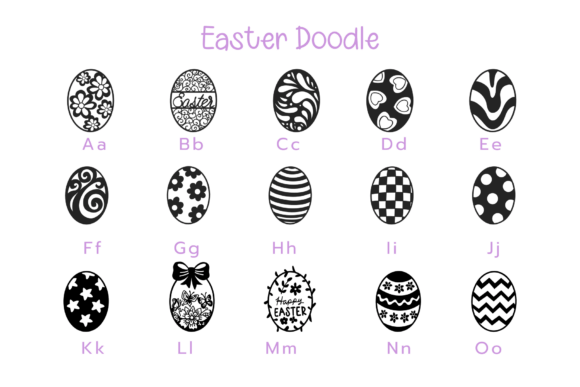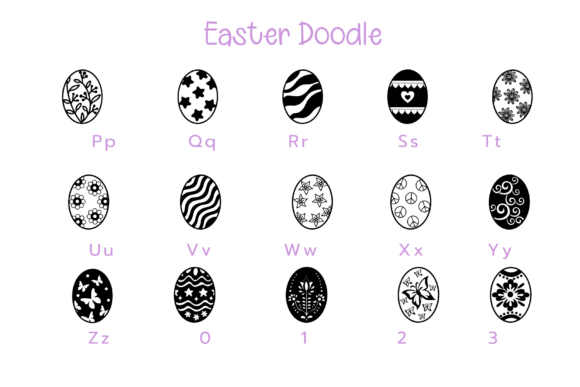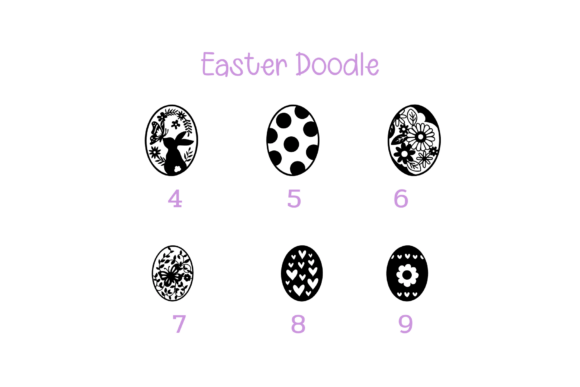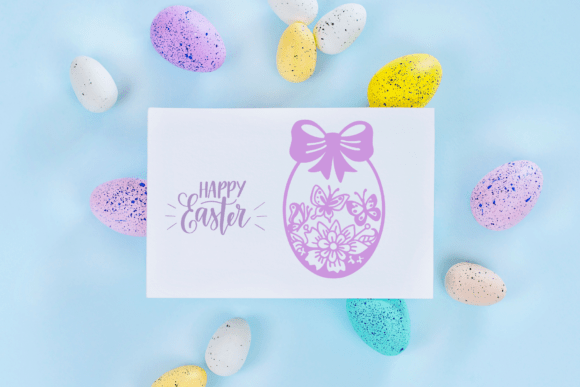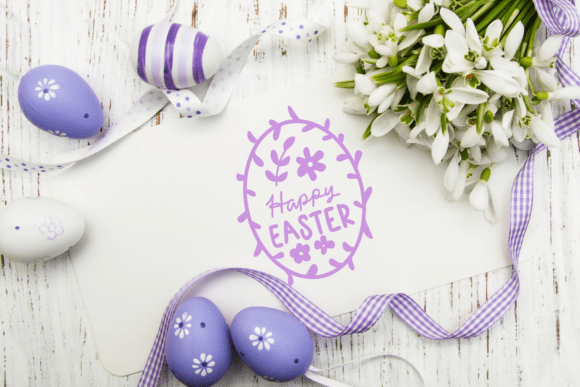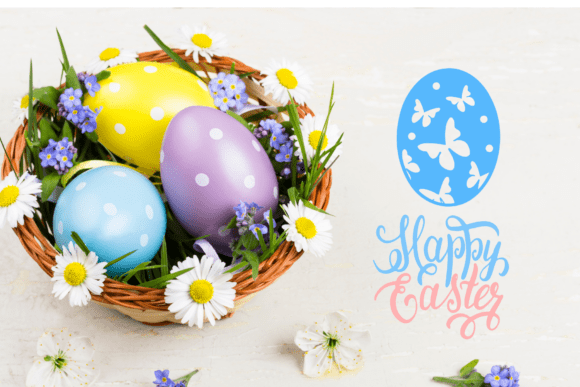
Spring into Creativity with Easter Doodle Font
As the Easter season approaches, I find myself sitting at my desk, surrounded by scraps of paper, colorful pens, and a blank canvas waiting to be filled with creativity. The air is filled with the sweet scent of spring, and my mind is buzzing with ideas. It’s moments like these that I crave a unique and playful tool to bring my designs to life – and that’s exactly what the Easter Doodle Font delivers.
This delightful dingbats font is a hand-drawn doodle bundle that’s bursting with Easter charm. With its whimsical style, it’s the perfect addition to any design project. Whether you’re creating T-Shirts, greeting cards, Easter decorations, or DIY tote bags, the Easter Doodle Font is the ultimate go-to tool for designers looking to add a personal touch to their work.
Easter Doodle Font Key Features
- Unique Characteristics: Easter-themed doodle illustrations and ornaments, including eggs, bunnies, and flowers
- Font Style: Hand-drawn, playful, and whimsical font style
- Character Count: Includes over 200 unique characters, including uppercase and lowercase letters, numbers, and punctuation marks
Easter Doodle Font Review
I’ve had the chance to work with the Easter Doodle Font, and I must say it’s a unique and quirky addition to any design project. ✨ The font’s hand-drawn, whimsical style is perfect for creating Easter-themed designs, party invitations, and other festive materials.
- Works well for:
- Creating a playful, Easter-inspired atmosphere
- Adding a personal touch to party invitations and decorations
- Designing children’s books and educational materials
However, there are some limitations to consider: ⚠️ The font may not be suitable for professional or formal designs, as it’s a bit too casual and playful. Additionally, the characters may not be as legible at smaller font sizes, which could make it difficult to read in certain contexts.
Overall, I think the Easter Doodle Font is a fun and creative option for designers looking to add a touch of Easter magic to their projects. While it may not be suitable for every design scenario, it’s a great choice for those who want to create something unique and eye-catching.
Tips for Getting the Most Out of Easter Doodle Font
Use the Easter Doodle Font to add a playful touch to invitations, party decorations, and other festive designs. You can also use it to create fun and whimsical headlines and titles.
Common Use Cases for Easter Doodle Font
Easter Doodle Font is perfect for creating Easter-themed designs, such as Easter egg decorations, Easter bunny illustrations, and Easter-themed invitations. You can also use it to add a playful touch to spring-themed designs and other festive projects.
Alternative Easter Doodle Fonts
Pacifico is a beautiful, cursive font that can be used for various designs, especially those related to spring and Easter. It has a relaxed and casual feel to it, making it perfect for greeting cards, invitations, and social media posts.
Compared to Easter Doodle Font, Pacifico is more elegant and sophisticated, but it lacks the whimsical, doodle-like feel of Easter Doodle Font.
Great Vibes is a fun, hand-drawn font that is ideal for designs that require a playful and carefree atmosphere. It’s perfect for Easter-themed designs, summer invitations, and other projects that need a lighthearted touch.
Compared to Easter Doodle Font, Great Vibes has a more dynamic and expressive feel, making it suitable for designs that require a bit more energy and movement.
Carolyna Pro is a modern, handwritten font that is great for designs that need a touch of sophistication and elegance. It’s perfect for Easter-themed invitations, wedding stationery, and other projects that require a refined and luxurious feel.